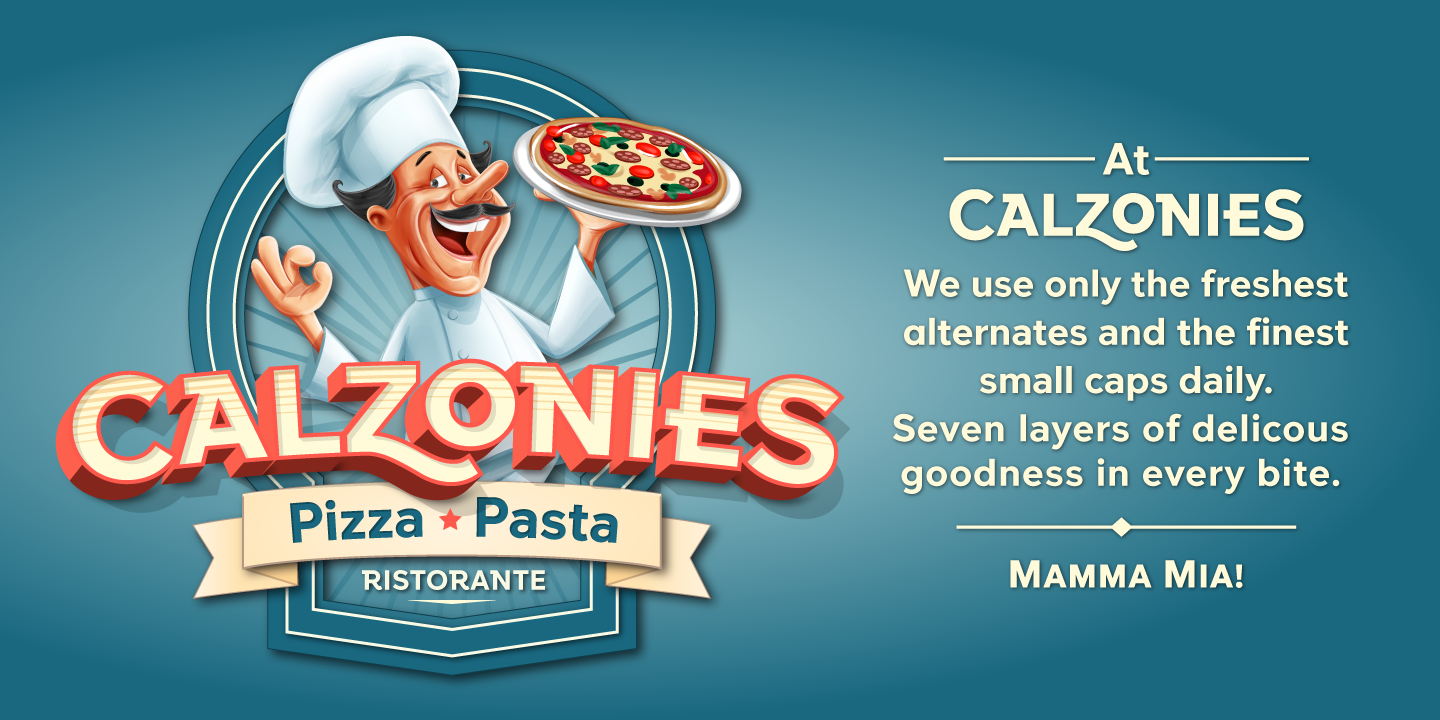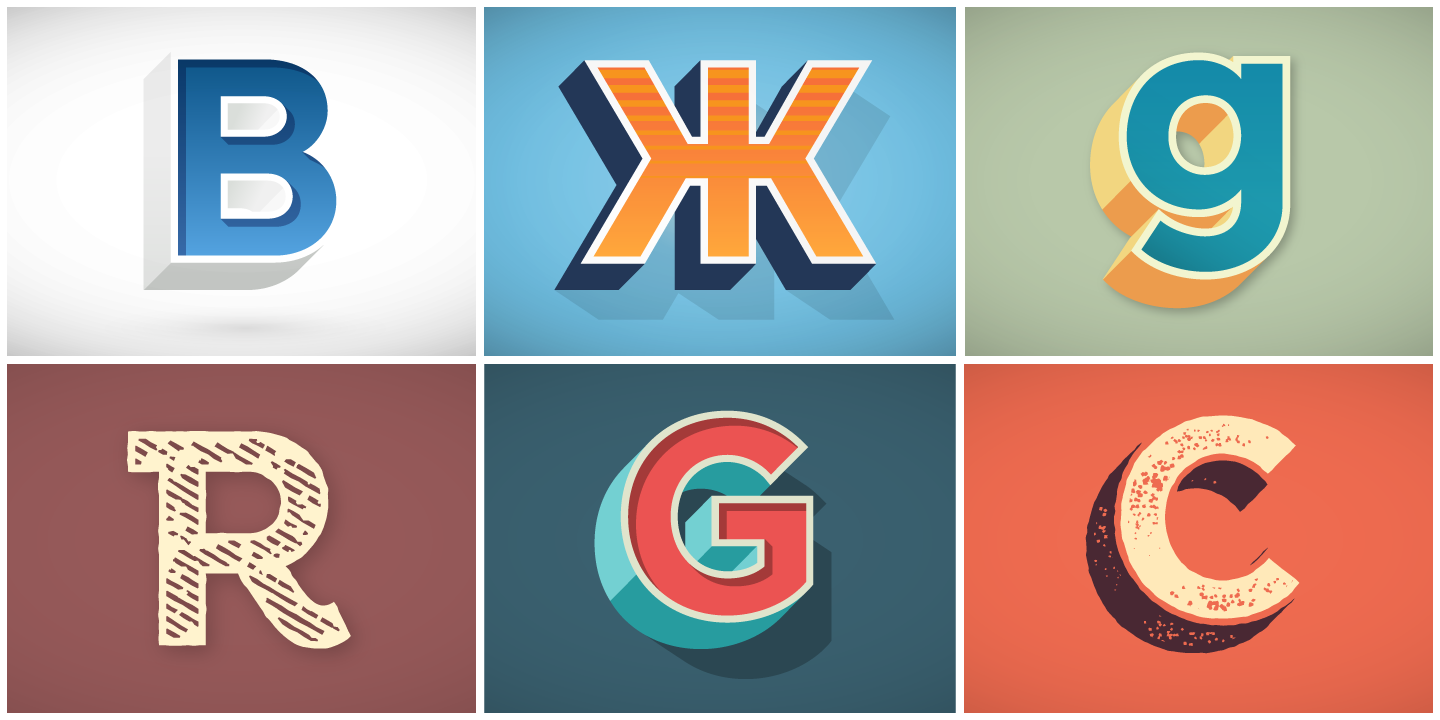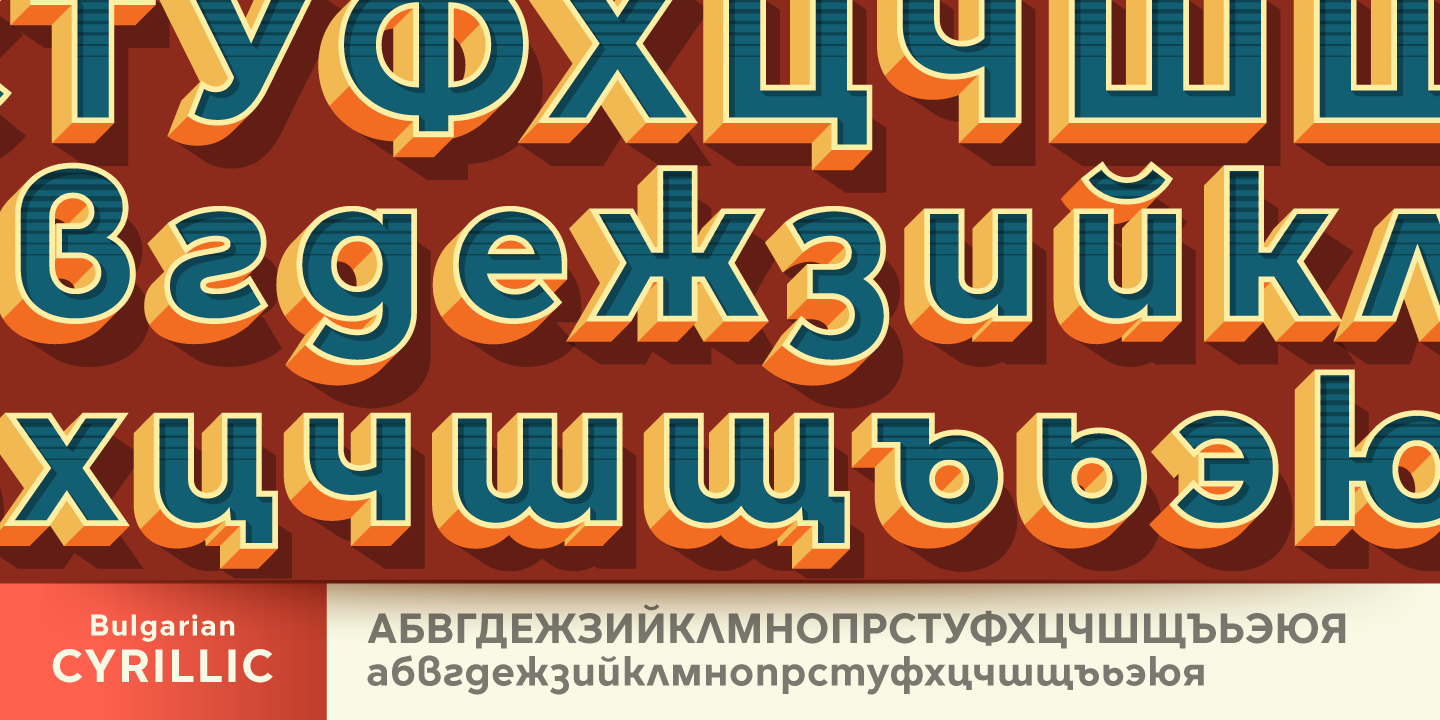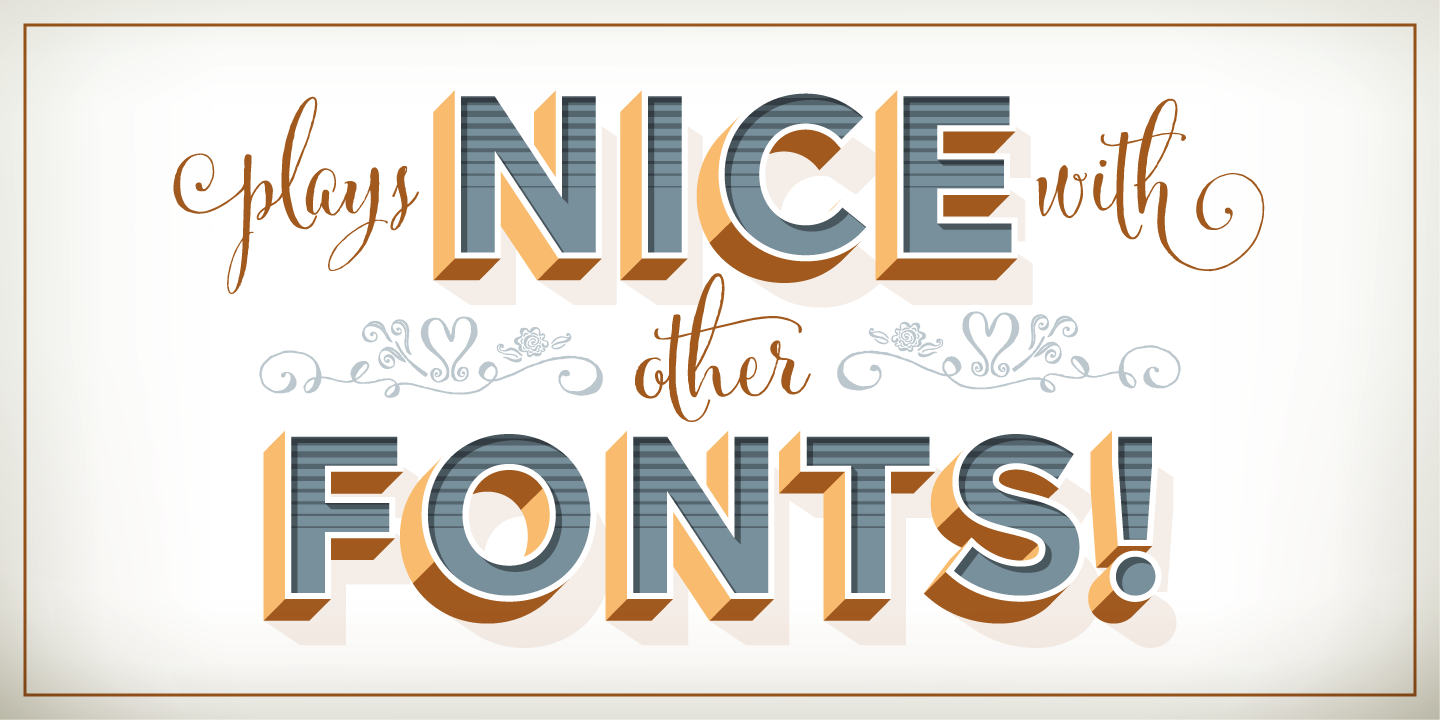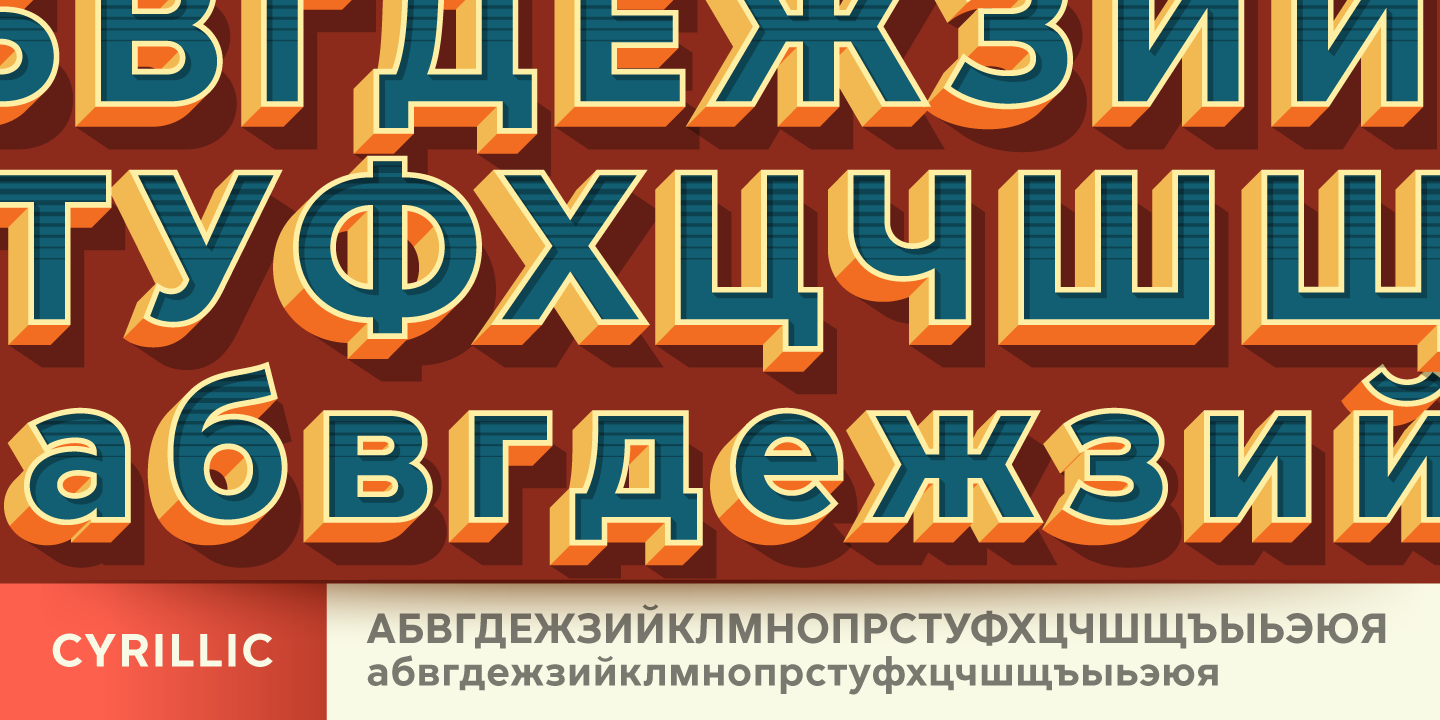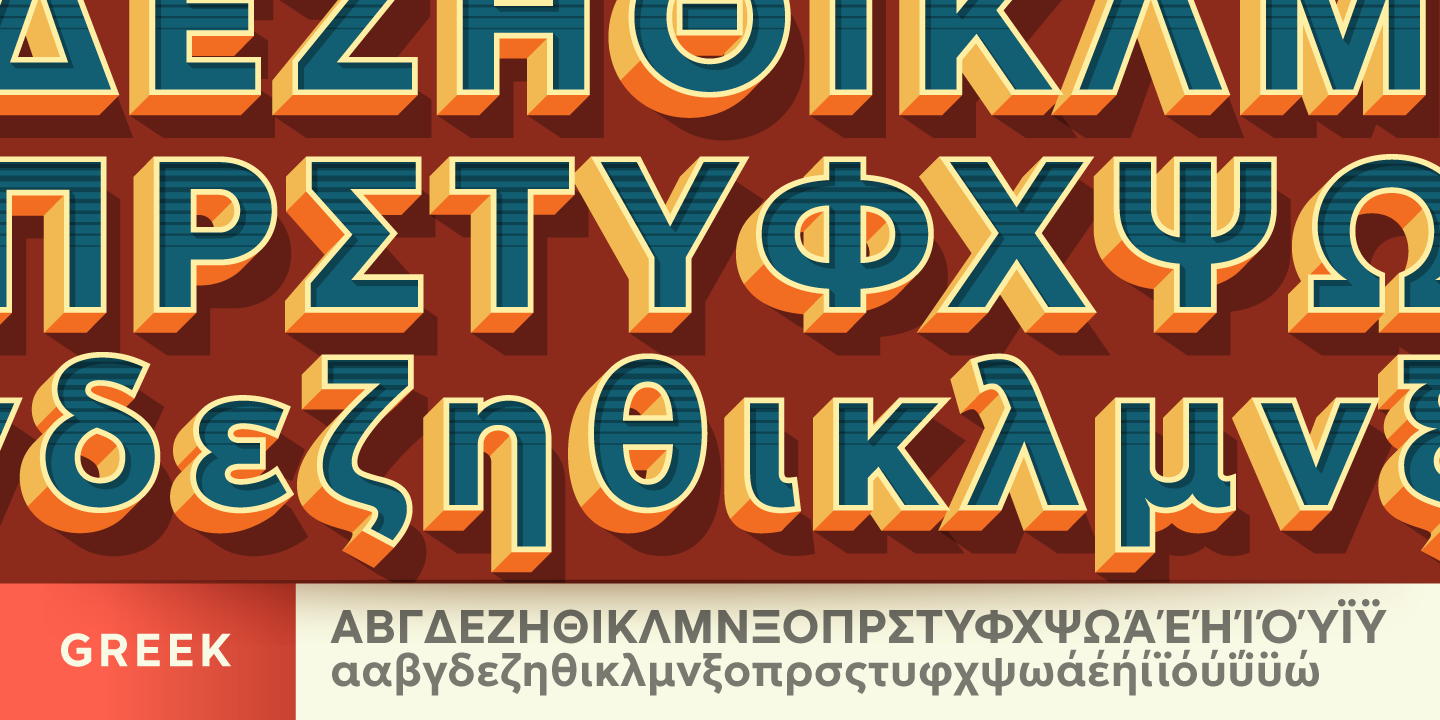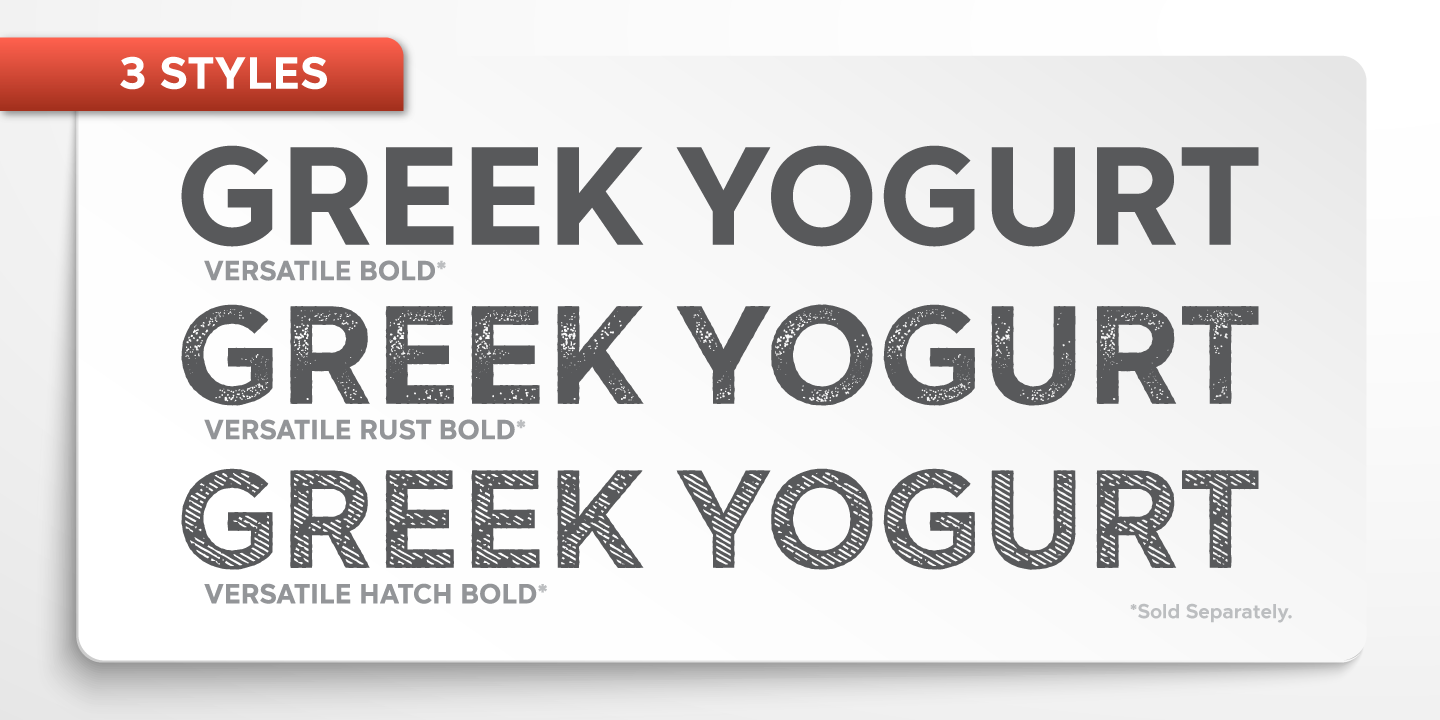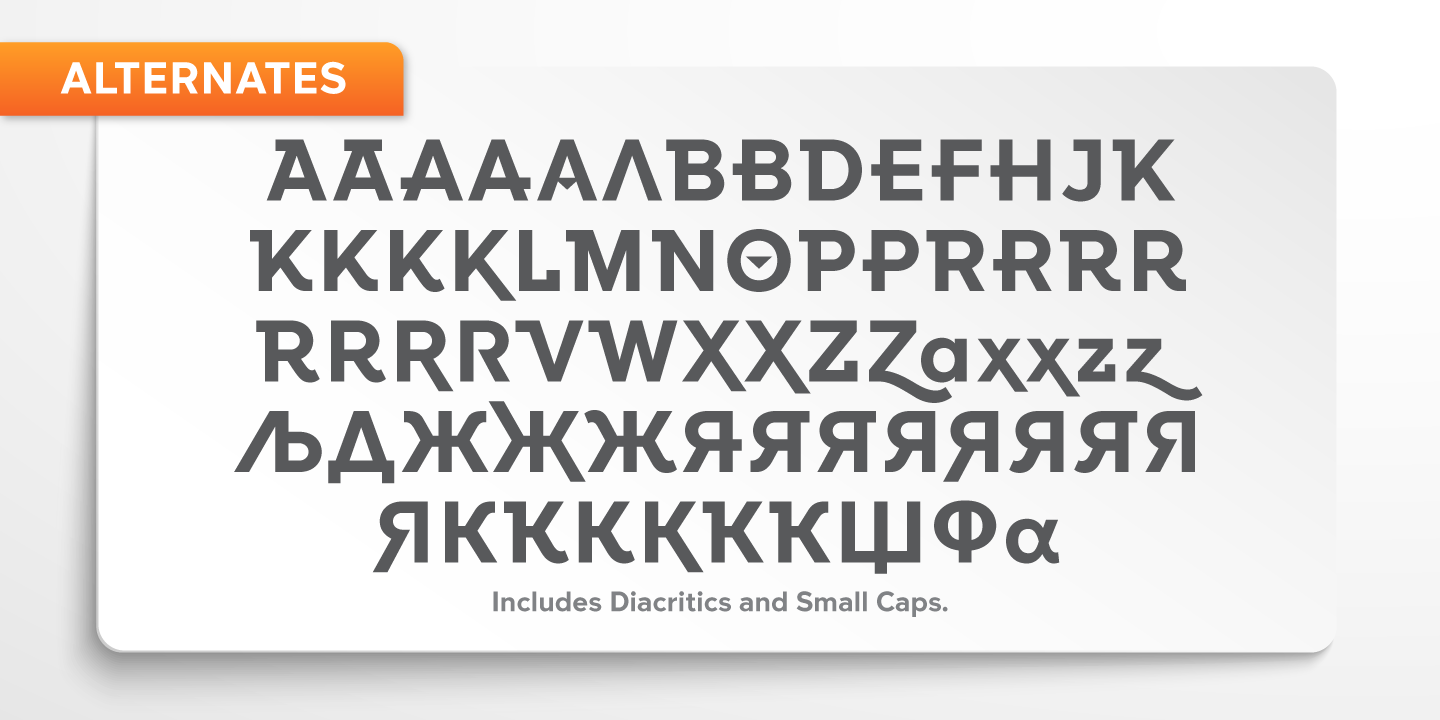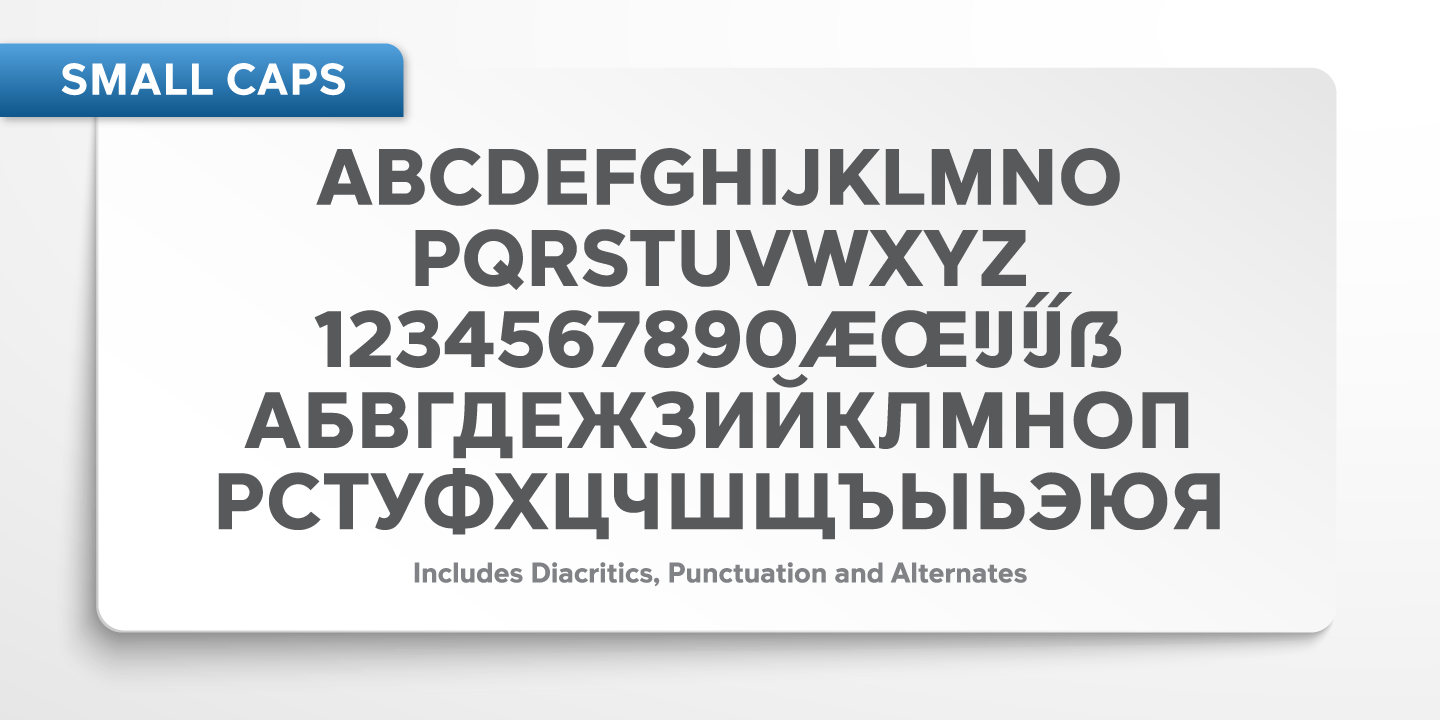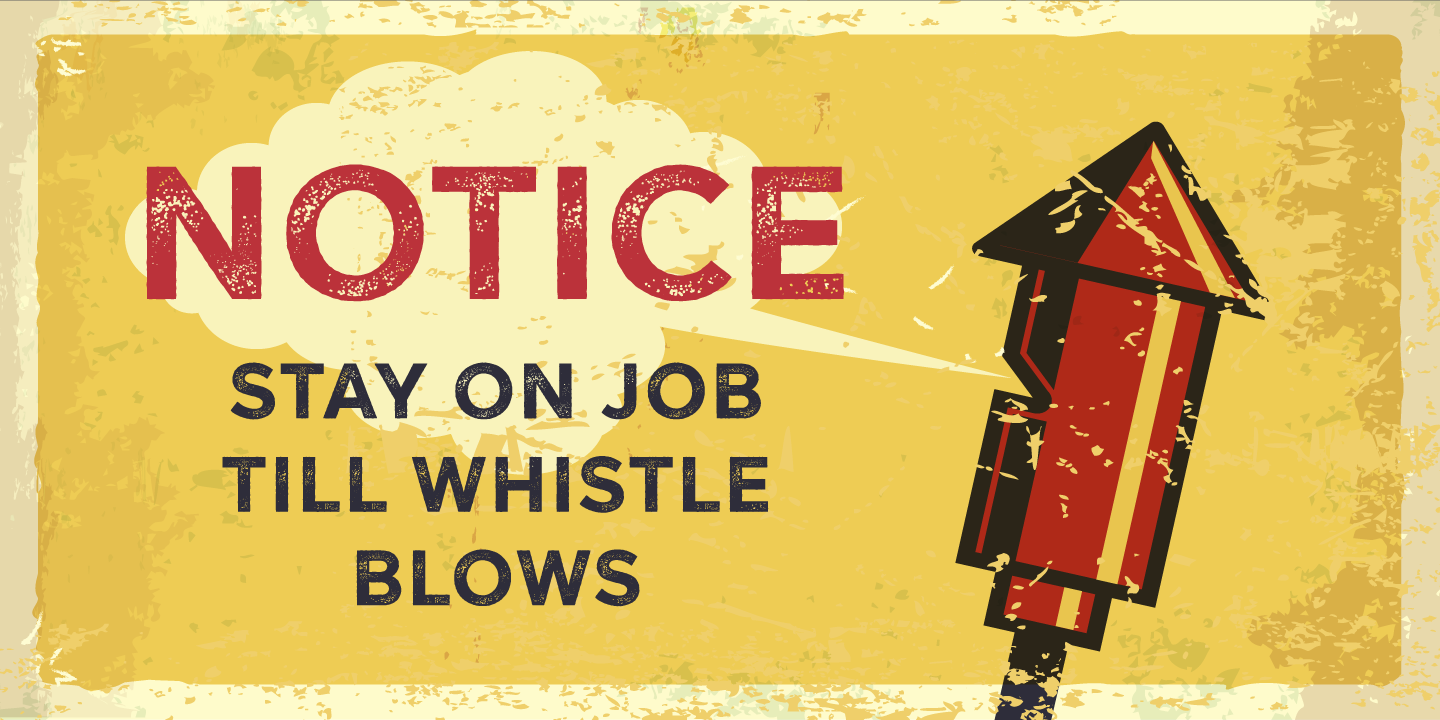
Versatile Rust Bold Family (7 fonts)
Versatile Bold is not just for the Graphic Designer. It’s well suited for the Sign Maker, Cricut and Silhouette users, and anyone else who uses a vinyl plotter. It weeds beautifully in cut vinyl. Its different layers allow the user to stack multi-colored vinyl to create one a kind signs and displays.
Versatile Bold is ideally suited for advertising and packaging, logo, branding and creative industries, poster and billboards, signage as well as web and screen design.
• Seven Fonts included in each style pack containing: Regular, Cast, Shadow, Highlight Shadow, Out line, Inside Shadow, and Lines. • 1,462 Glyphs (Characters) in each font for a total of 10,234 Glyphs per style pack. • Over 200 Languages supported including Cyrillic, Bulgarian Cyrillic and Greek. • A massive library of Latin, Extended Latin and Cyrillic Alternates including their Diacritic and Small Cap counterparts. • Superscripts, Subscripts, Numerators, Denominators, and Scientific Inferiors. • Small Caps in Latin, Extended Latin and Cyrillic include Numbers, Punctuation, Diacritics and Alternates. • Extended currency symbols including Bitcoin. • Fun assortment of speech bubbles. • Unlimited fractions. • All 1,462 Glyphs have their display equivalents. • PUA Encoded Versatile makes Typography fun!